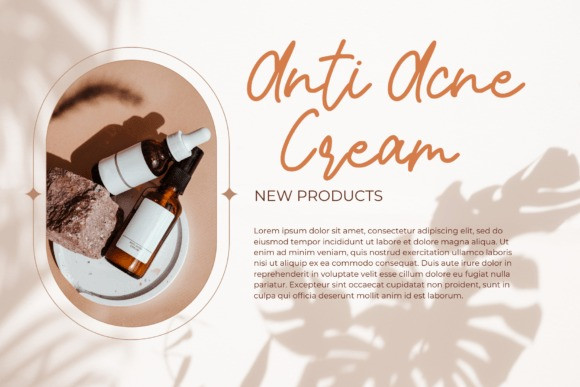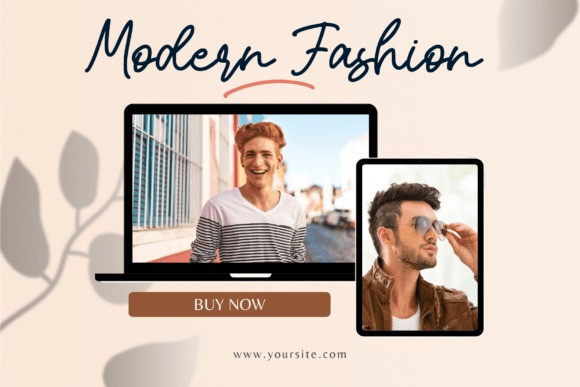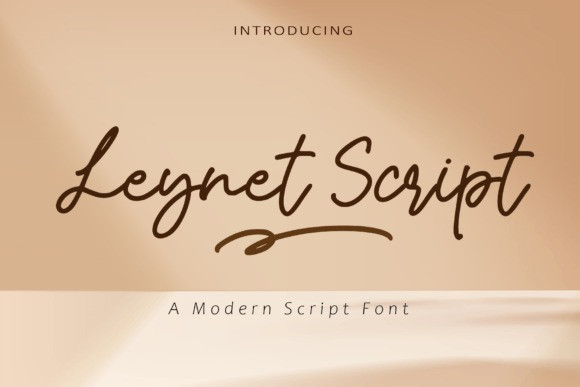
Leynet Script Font
Leynet Script Font is a stylish typeface that has sophisticated and versatile looks. It gives a chic vibe to your design project.Leynet Script is perfect for branding projects, logo, wedding designs, social media posts, advertisements, product packaging, product designs, label, photography, watermark, invitation, stationery and any projects that need handwriting taste. Comes in Regular and Italic styles.